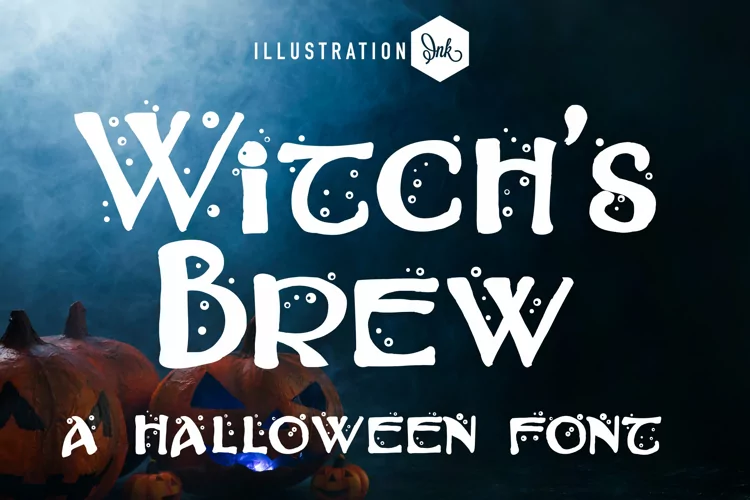
Witches Brew - A Curly Halloween Font
Get ready to stir up some enchantment with Witches Brew Font: The spellbinding Halloween-inspired font with delightfully curly wurly letters!
Embrace the mystical world of magic and spells with Witches Brew Font. This captivating typeface is brimming with the spirit of Halloween, featuring curly wurly letters that dance across your designs like the flickering flames of a witch's cauldron. Whether you're conjuring up wickedly fun party invitations or creating mystical posters, Witches Brew Font is sure to cast a spell on your audience!